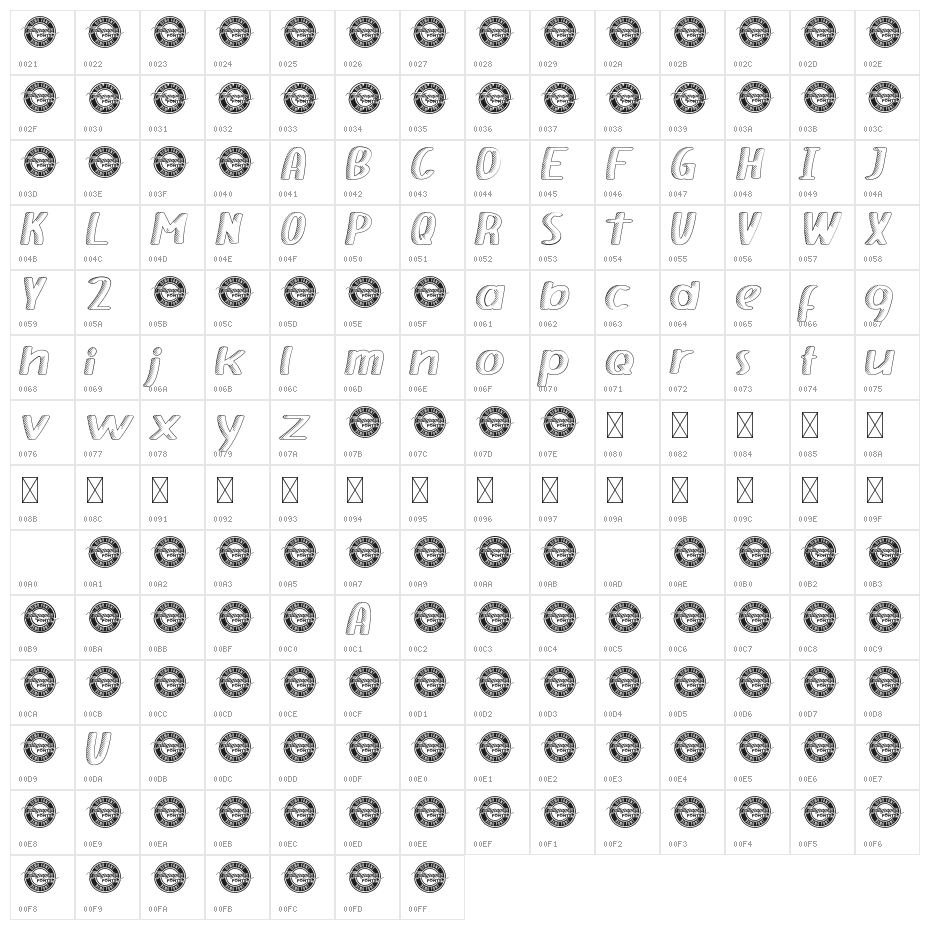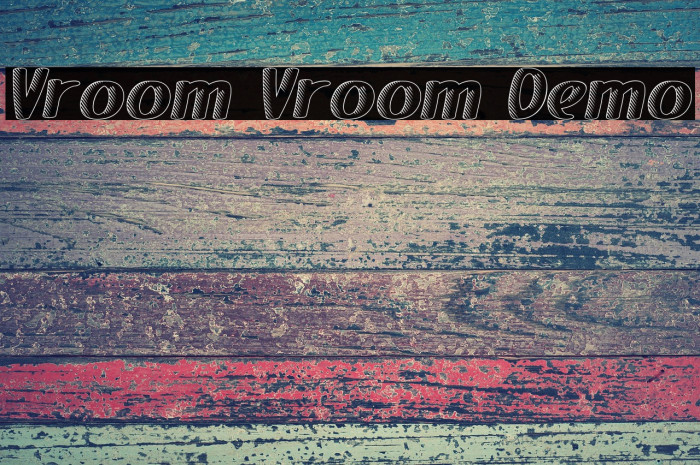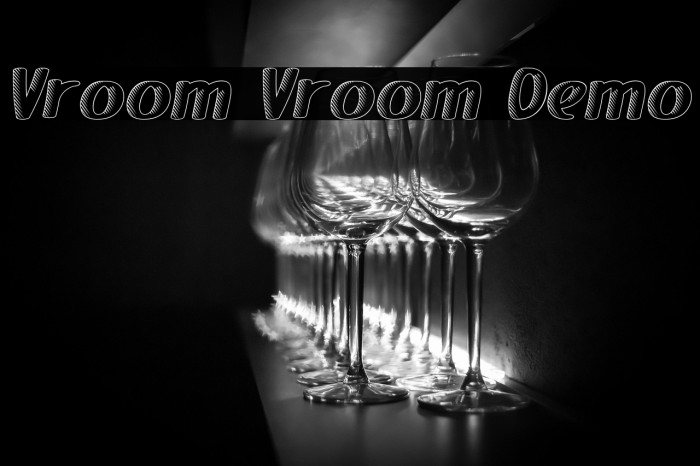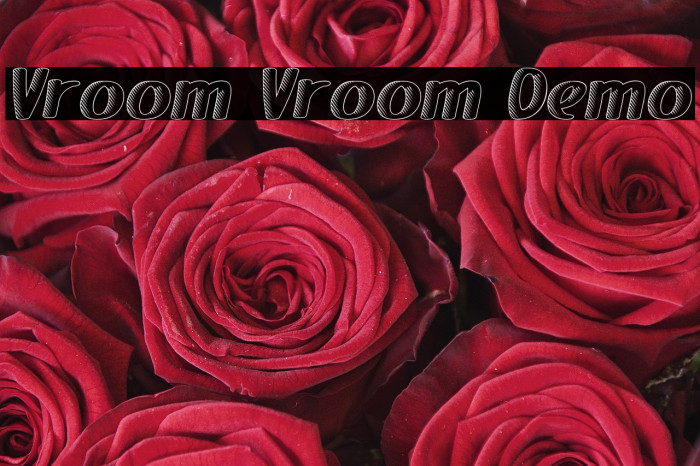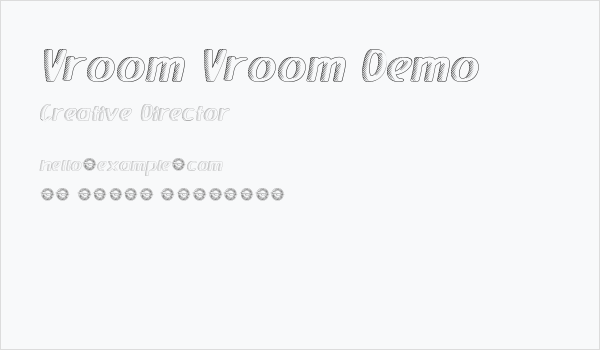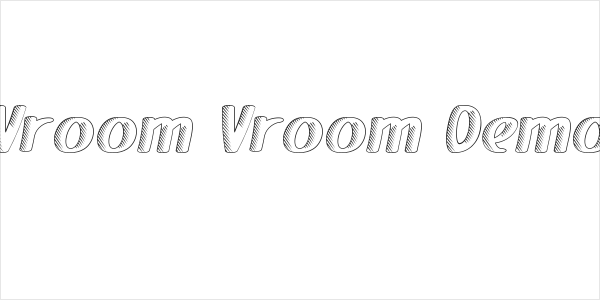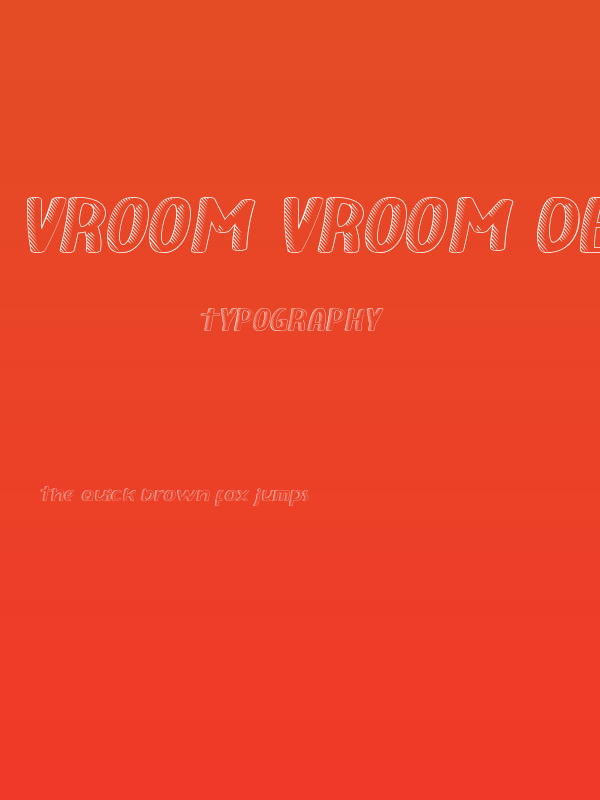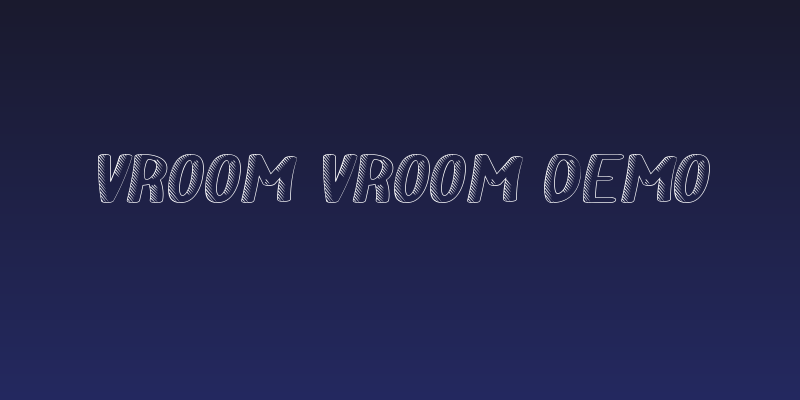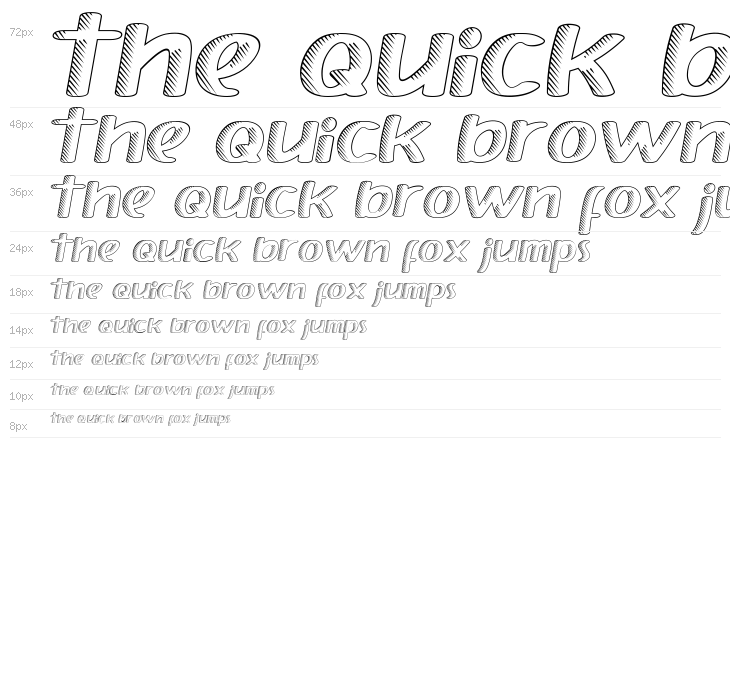
Vroom Vroom Demo Font
Vroom Vroom Demo Description
This font features a unique and dynamic style characterized by bold, slanted letters with a distinct diagonal line pattern running through each character. The uppercase and lowercase letters maintain a consistent design, providing a cohesive look. The font's playful and energetic appearance makes it stand out, with each letter appearing as if it's in motion. The diagonal lines add texture and depth, creating a sense of speed and movement. This font is ideal for projects that require a lively and engaging typeface, capturing attention with its distinctive design.
| Proposed Projects | Ideal for automotive branding, sports event posters, dynamic logo designs, and children's book covers. |